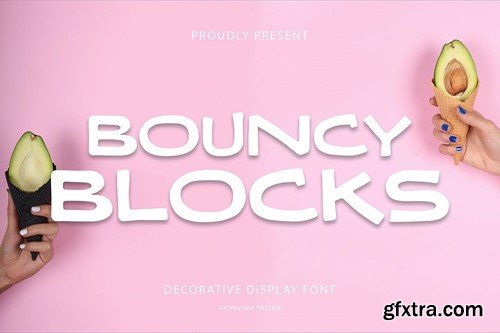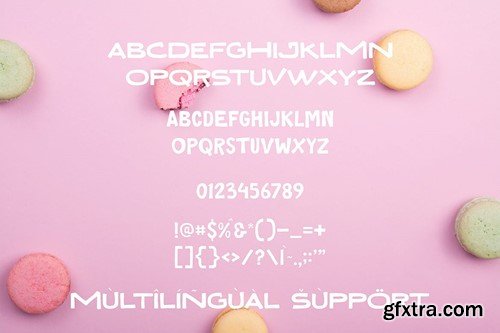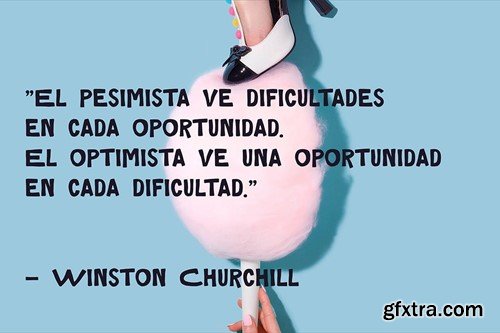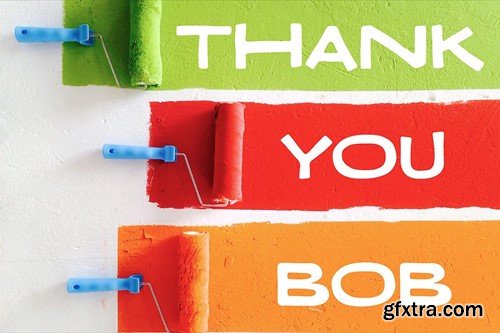
Bouncy Blocks - Decorative Font
Introducing Bouncy Blocks, a simple and decorative font. So perfect for you who needs a typeface for logo designs, magazine, social media, brochure, and many more. Features Files Includes Thank you for checking and i hope you enjoy it.